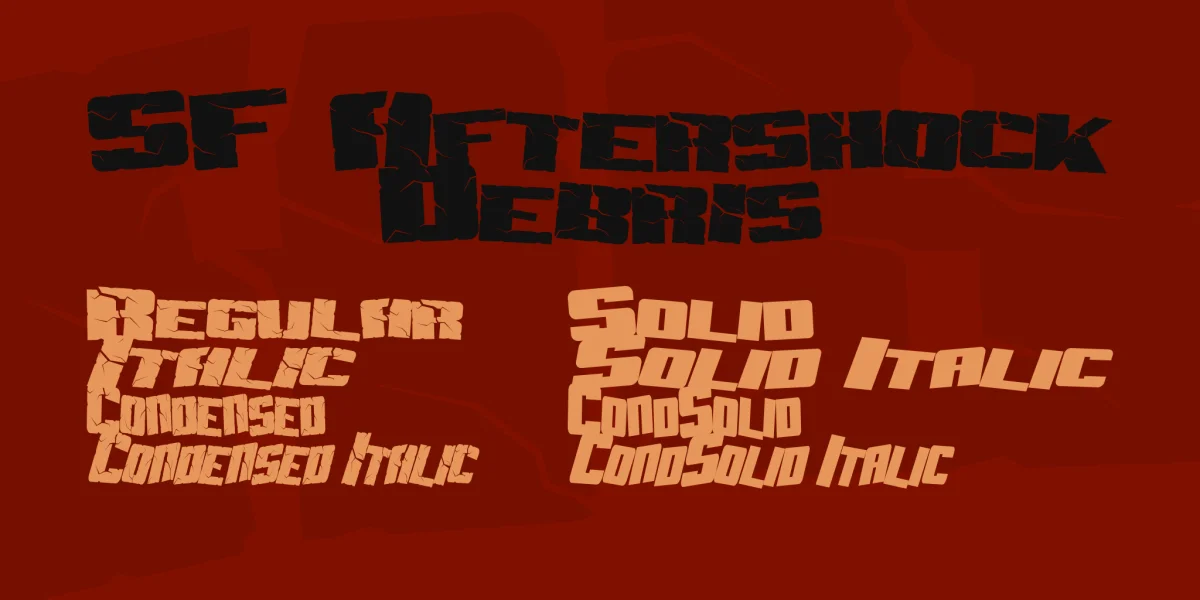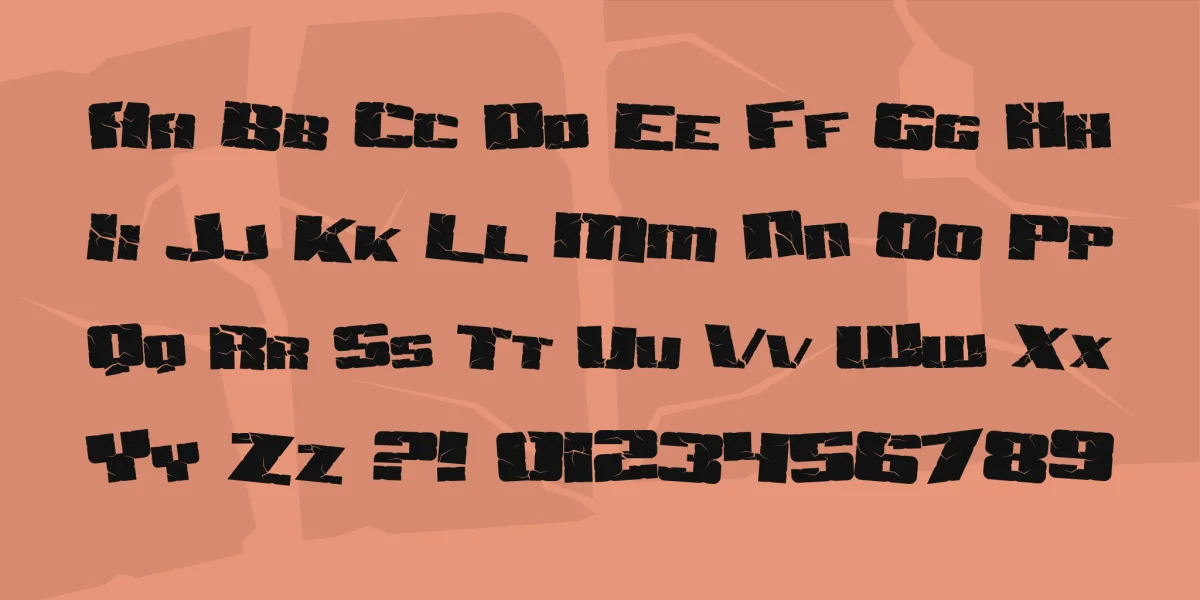
A groundbreaking, earth-shattering typeface that's great for all your titling needs, SF Aftershock Debris contains lowercase and uppercase letters, numbers, and a limited amount of punctuation.